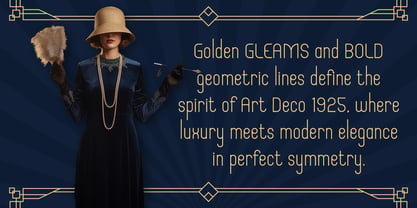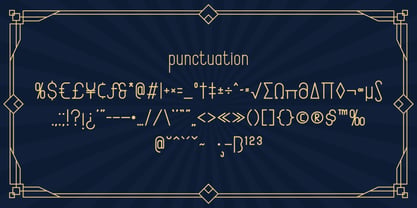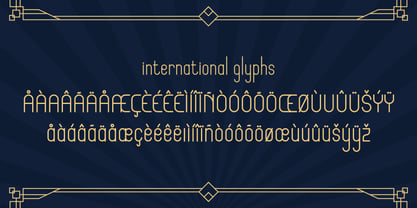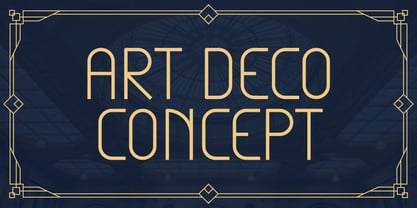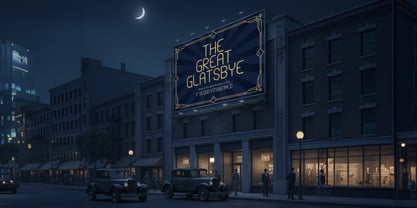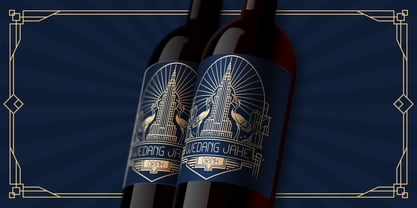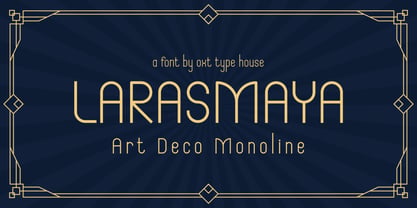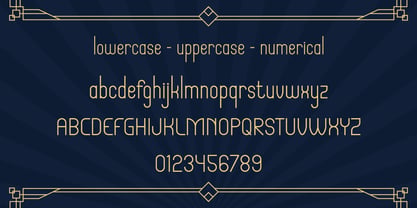
Larasmaya
by Oxt Type House
The Larasmaya Font Family was designed by Oksta Aziz Rachmaddan and published by Oxt Type House. Larasmaya contains 1 styles. More about this family
Larasmaya is an elegant Art Deco monoline typeface featuring sleek geometric lines, refined proportions, and timeless vintage sophistication. Inspired by the glamour of the 1920s and 1930s, Larasmaya blends classic Art Deco aesthetics with modern minimalism, making it perfect for luxury branding, logo design, editorial layouts, packaging, fashion labels, and premium visual identities. Its clean monoline structure, balanced letterforms, and decorative geometric details create a distinctive retro yet contemporary look that elevates any high-end design project.